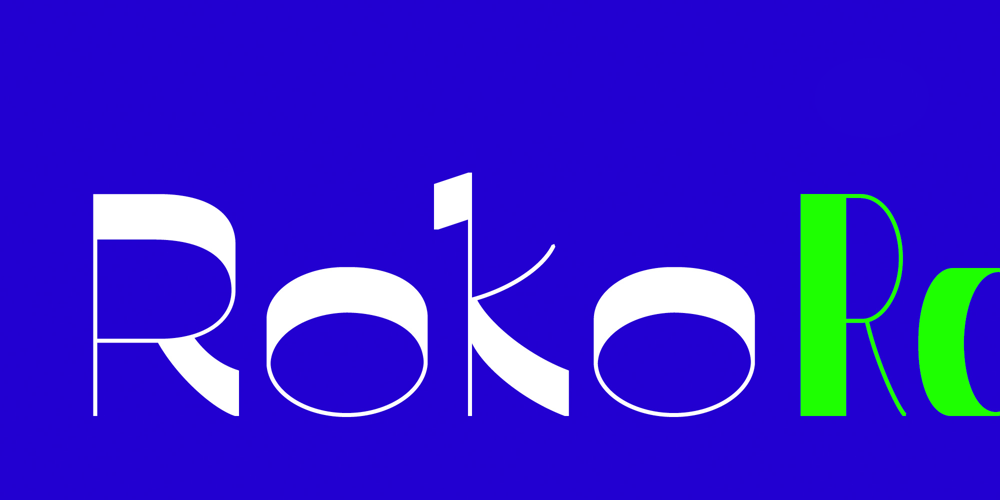
Roko Font Family was designed by Petra Rüth and published by Manufraktur. Roko contains 3 styles and family package options. Roko – a contrast-heavy display font with strong character!Roko has compelling visual qualities which shine for headline use or in a branding environment. It will grab attention with its high contrast, present in all glyphs.Roko is designed with a rigid mathematical foundation, inspired by an 18th-century writing master. A virtual calligraphy nib is used in full width or moving on the corner, leaving only a thin, delicate stroke. The three styles of the family share the same concept for their skeletons, allowing them to blend well when used together. Roko comes as a Latin-1 character set, covering all Western European languages. It has a variety of alternates and ligatures for you to have fun and play with for interesting combinations.